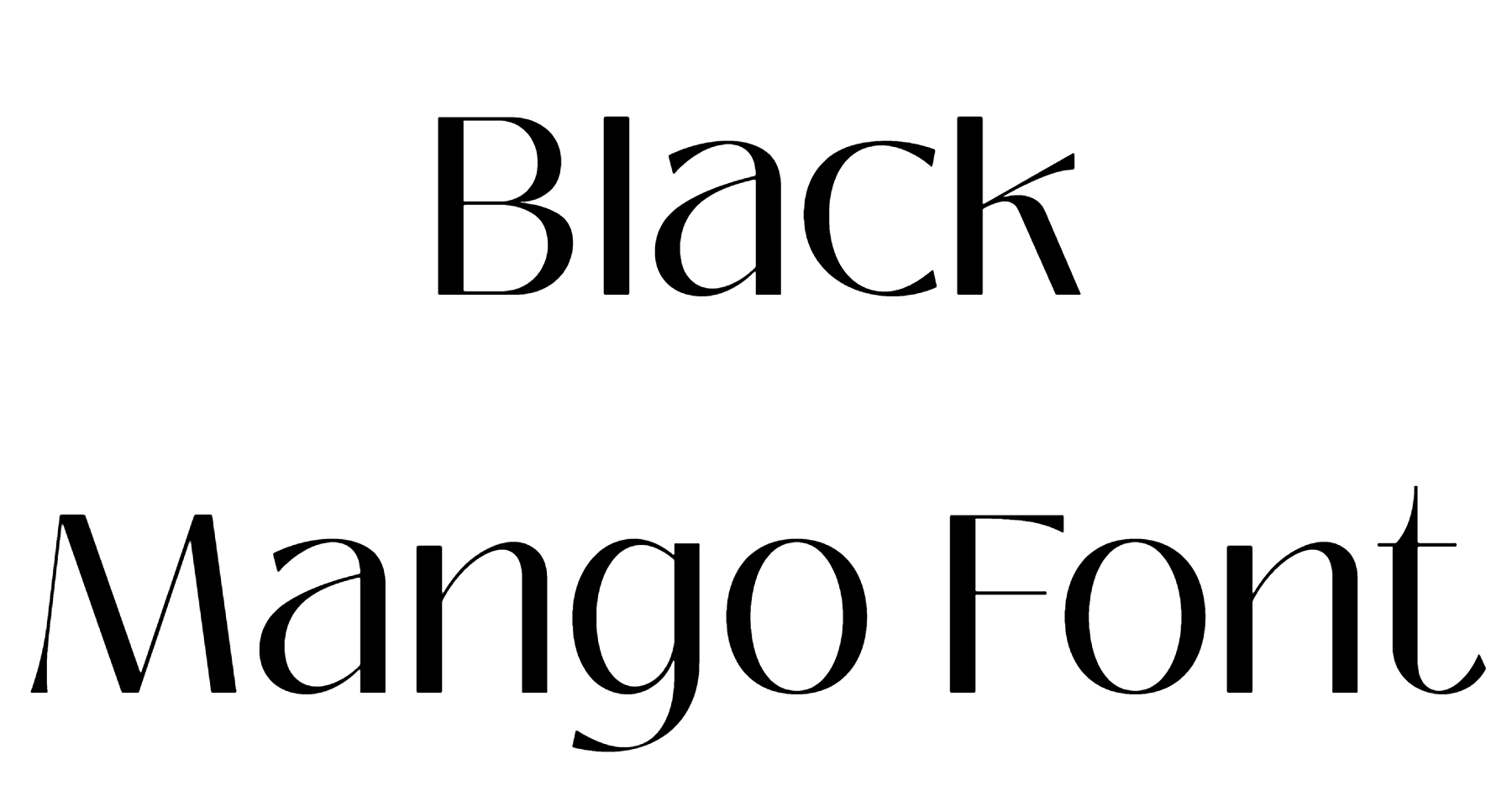
Kadek Mahardika designed Black Mango, a chic, modern display font family, and released it through Creative Media Lab in October 2020. Designers highly celebrate it for its clean, elegant lines mixed with subtle vintage, groovy undertones.
Black Mango
Black Mango is a serif font created by Kadek Mahardika (2020). It has the traditional, bookish feel of type you see in novels, newspapers and long-established brands. You can download it for free and test it with your own words in the preview above.
- Designer: Kadek Mahardika
- Glyphs: 432
- OpenType features: Ligatures (including optional ones), stylistic alternates, 6 stylistic sets and fractions
- Extra characters: 88 copy-and-paste alternates (Private Use Area)
Black Mango covers the full alphabet in upper and lowercase, plus all ten numbers, so you can set names, dates and prices without switching fonts. Common punctuation such as &, !, ? and @ is included as well. It also has the accented letters you need for Spanish, French, German, Portuguese and Italian.
Think of Black Mango for book covers, magazine headlines and classic branding. Its lowercase letters are tall compared to the capitals, which keeps it readable at smaller sizes. Serif fonts shine in headlines and printed text. For long paragraphs on phones, check that it still reads well at small sizes.